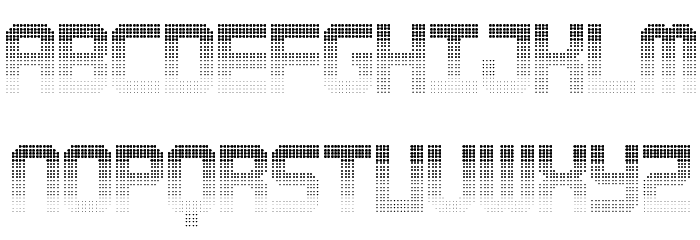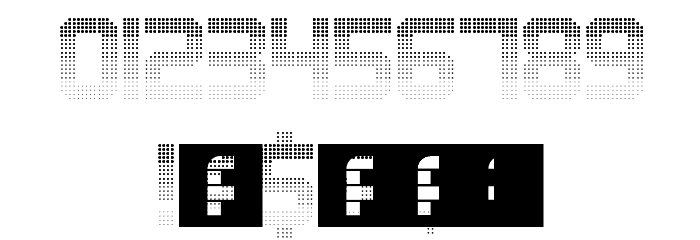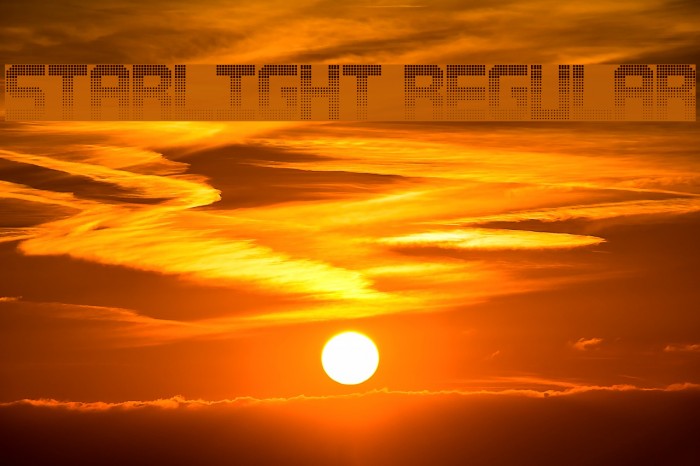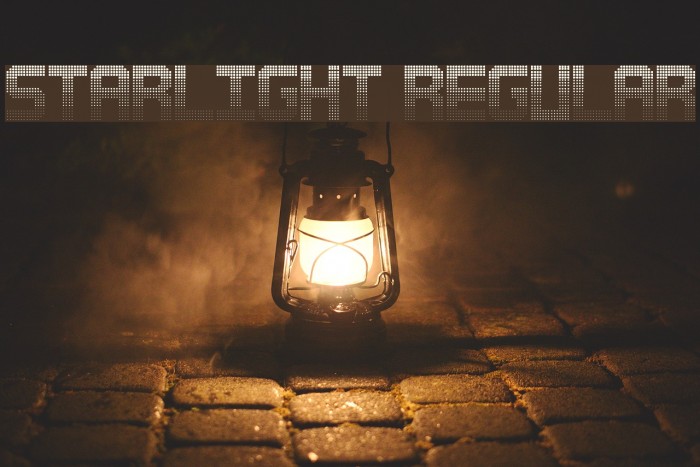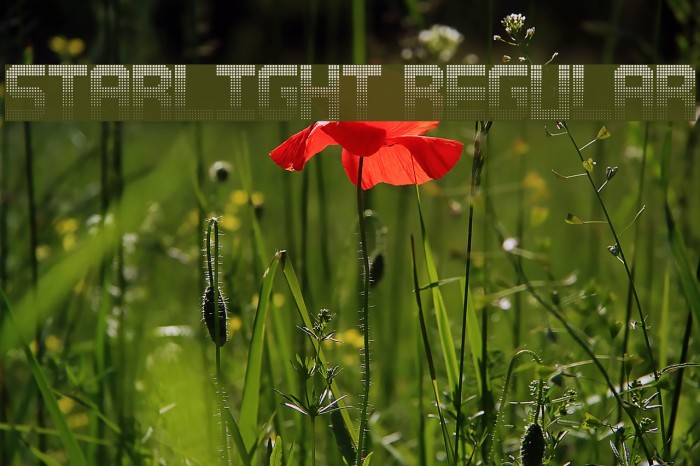
Starlight Regular Font
This font features a unique design composed of small dots that form each character, creating a digital or pixelated effect. The characters are evenly spaced and maintain a consistent height, giving a structured and modern appearance. The uppercase and lowercase letters, as well as numbers and special characters, are all crafted with this dotted style, making it highly distinctive and suitable for creative and tech-oriented projects. The font's geometric nature and uniformity make it ideal for digital displays or futuristic themes.
A dotted, pixelated font with a modern and digital aesthetic.
- Proposed Projects: Ideal for digital art, tech branding, futuristic posters, and video game graphics.
- Use Case: Logos, Headlines, Digital displays